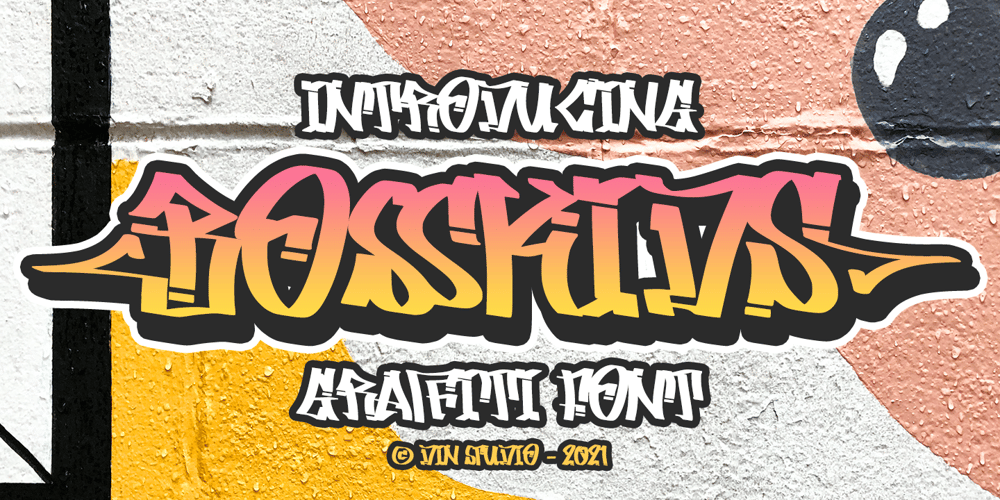
Bosskids Font Family was designed by Donis Miftahudin and published by Din Studio. Bosskids contains 1 styles and family package options. Hi, Everyone! Want a font to make your branding bold? Looking for a fabulous, stylish, artistic, and adventure font? We’ve got what you want.Introducing Bosskids- A Grafiti FontThis gorgeous, stylish and artistic font can be used for a host of different content needs and projects. Make your graffiti text dance with this wonderful, rhythmic font that captures motion and is bound to call attention wherever you use it. Use it for your headings, logos, ads, printed quotes, packaging, and even your website or social media branding.Our font always includes Multilingual Support to make your branding reach a global audience.Features: Ligatures Stylistic Sets Multilingual Support PUA Encoded Numerals and Punctuation Thank you for downloading premium fonts from Din Studio